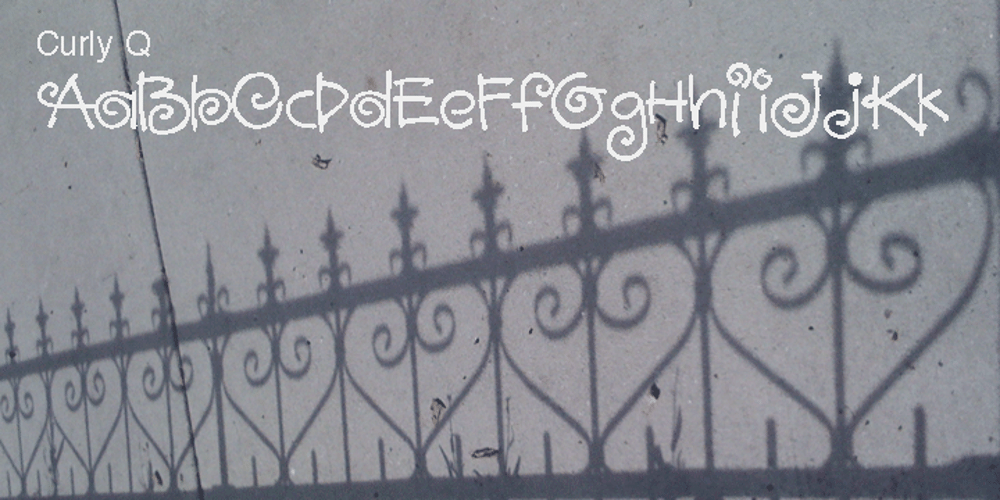
Curly Q
Curly Q font
Curly Q Font Family was designed by Rae Kaiser and published by Outside the Line. Curly Q contains 1 styles and family package options. CurlyQ new from Rae Kaiser and Outside the Line. A curly, swirly, girly kind of font. A delightful headline font for your next garden party or note to the kids from the tooth fairy.